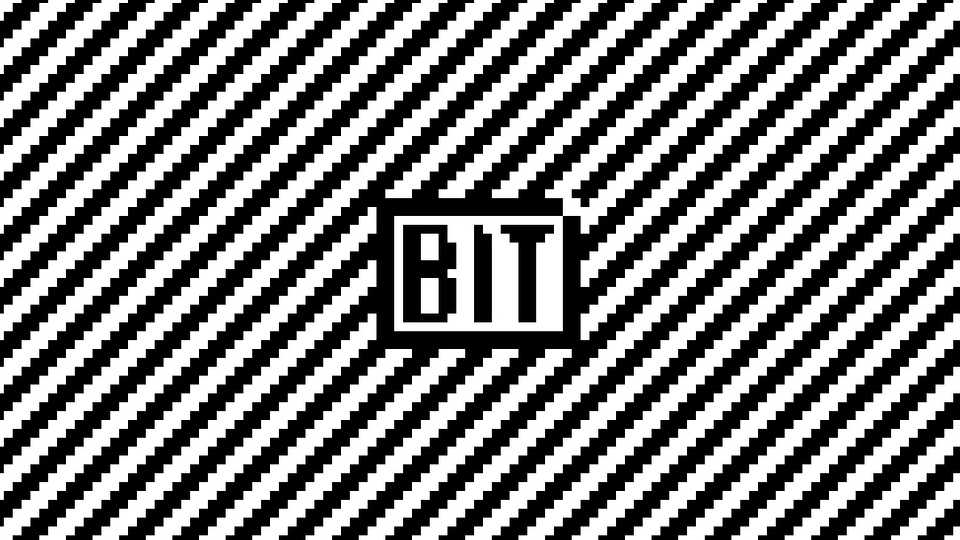
Download Bit font, a pixel typeface inspired by the style “outrun” and “aesthetic”. The main idea behind the Bit typeface is to combine the style of 80’s with futuristic elements.